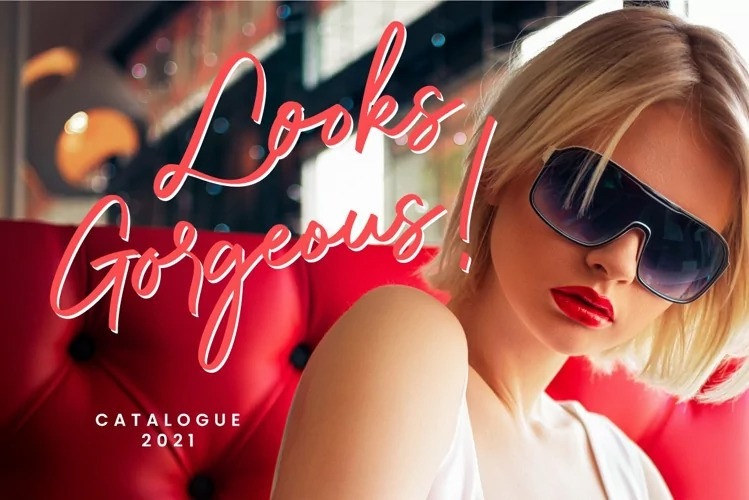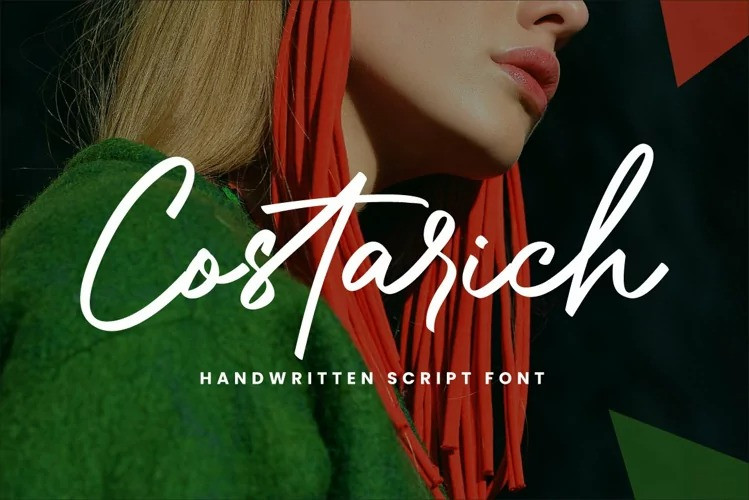
Costarich Font
Costarich Script Font is an exquisite handwritten font, masterfully designed to become a true favorite. It maintains its classy calligraphic influences while feeling contemporary and fresh. Costarich is perfect for logo and branding projects, social media posts, quotes, photography, fashion, product label and packaging, watermark, and other projects that need a handwritten style.